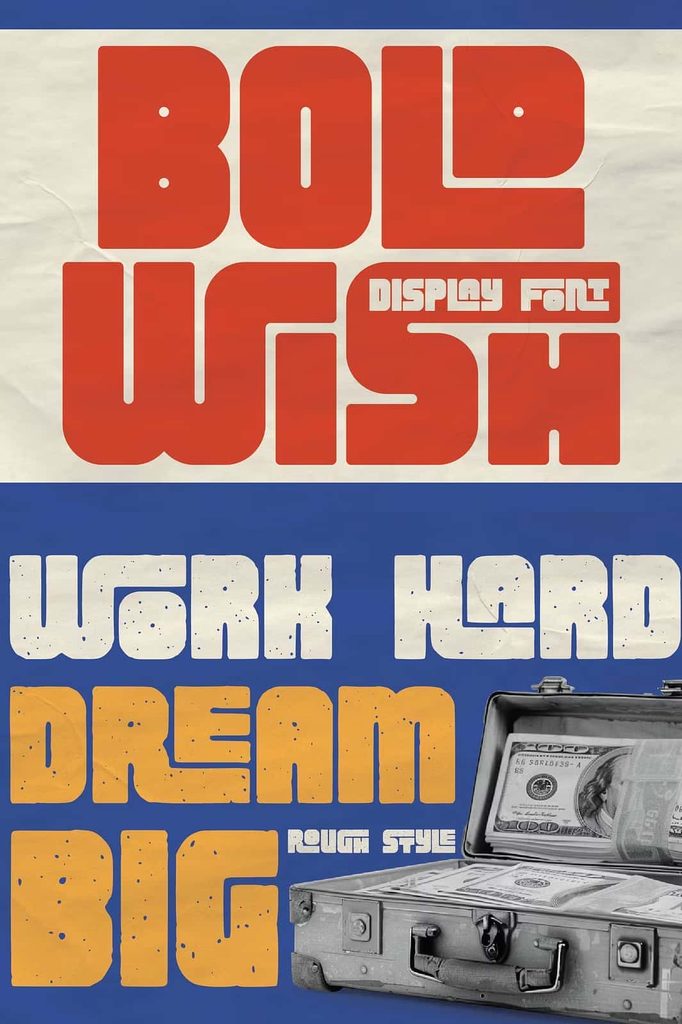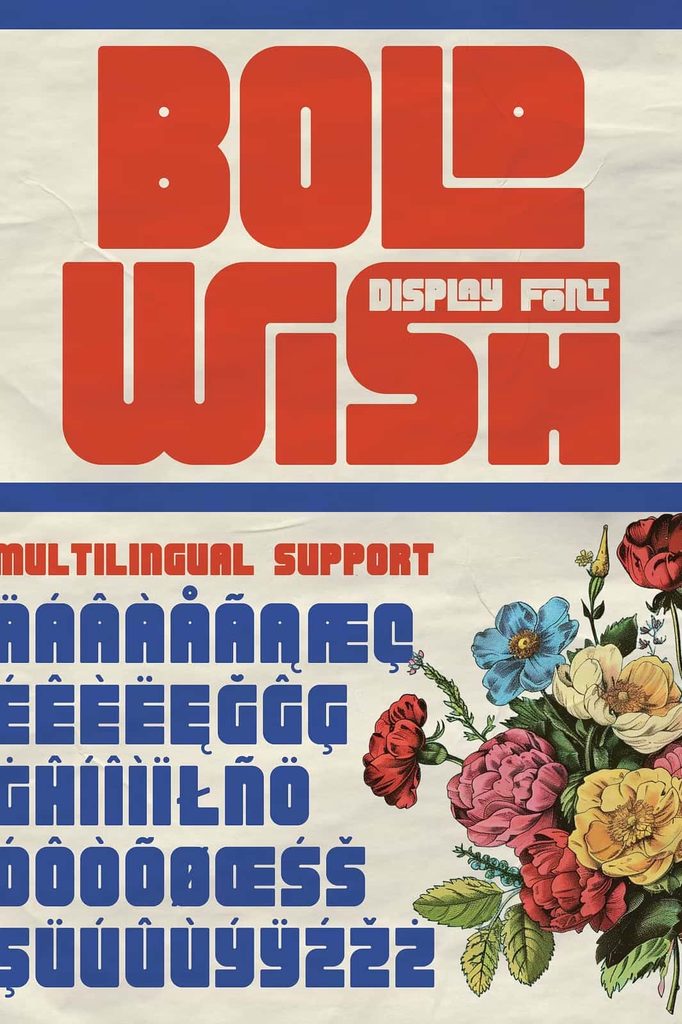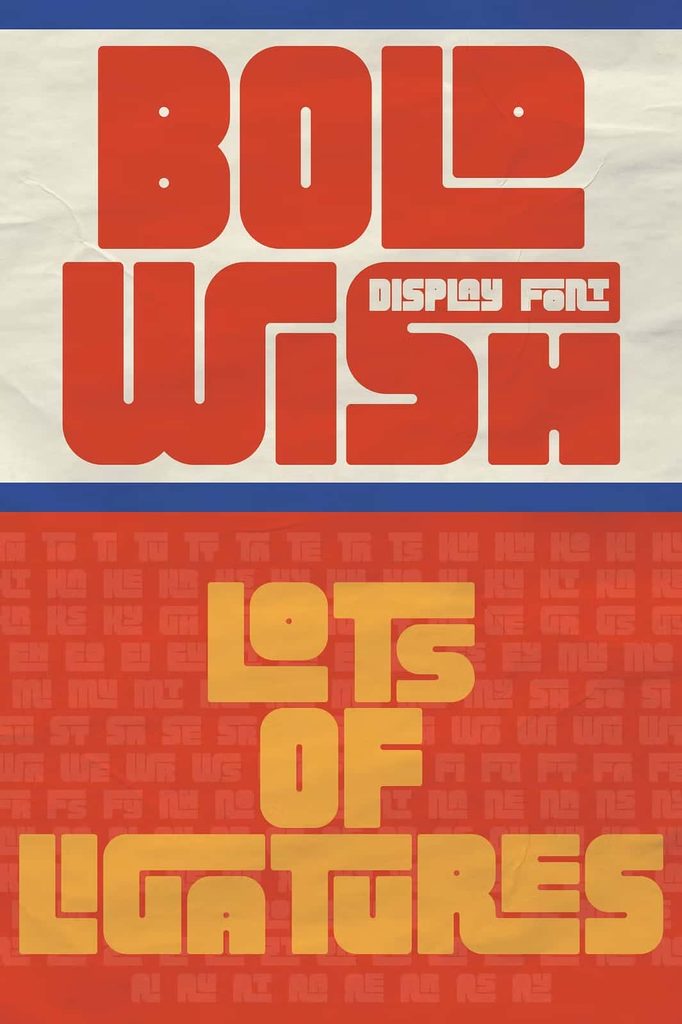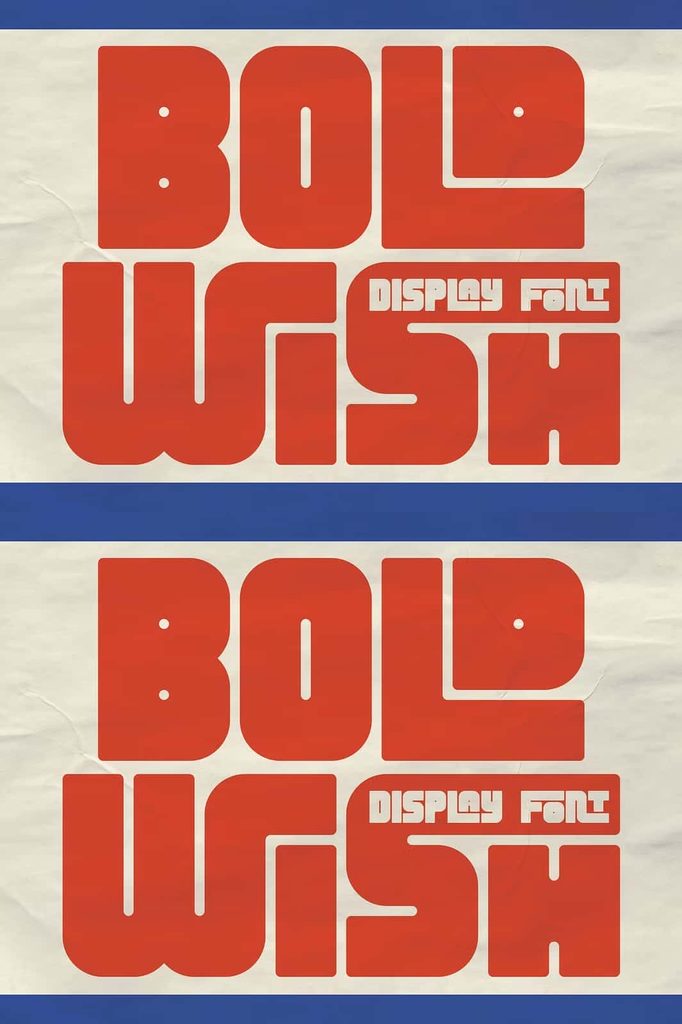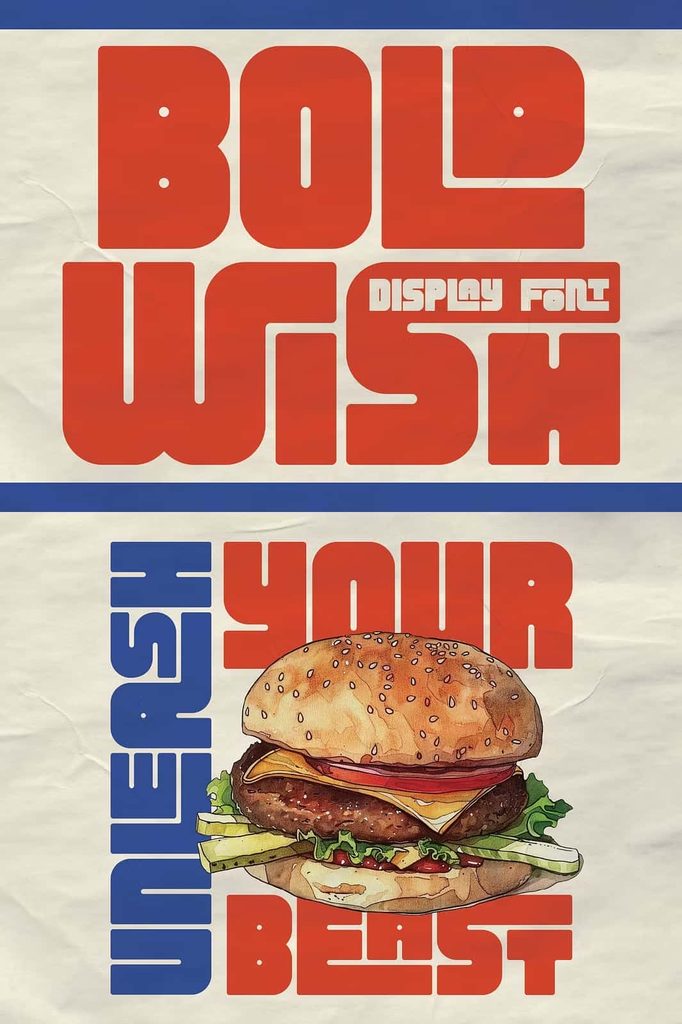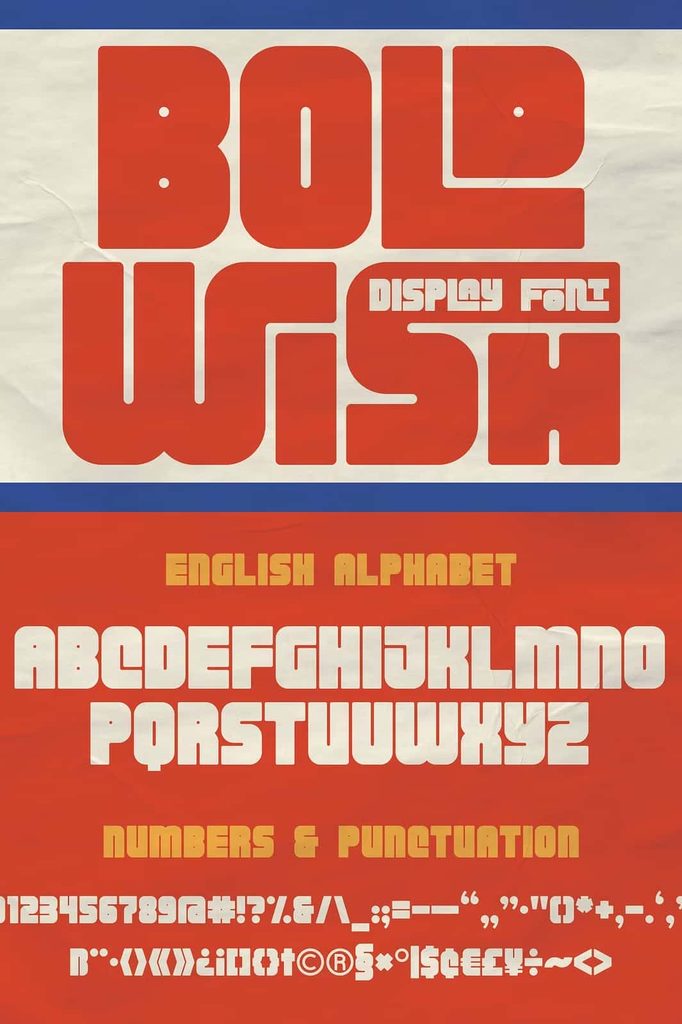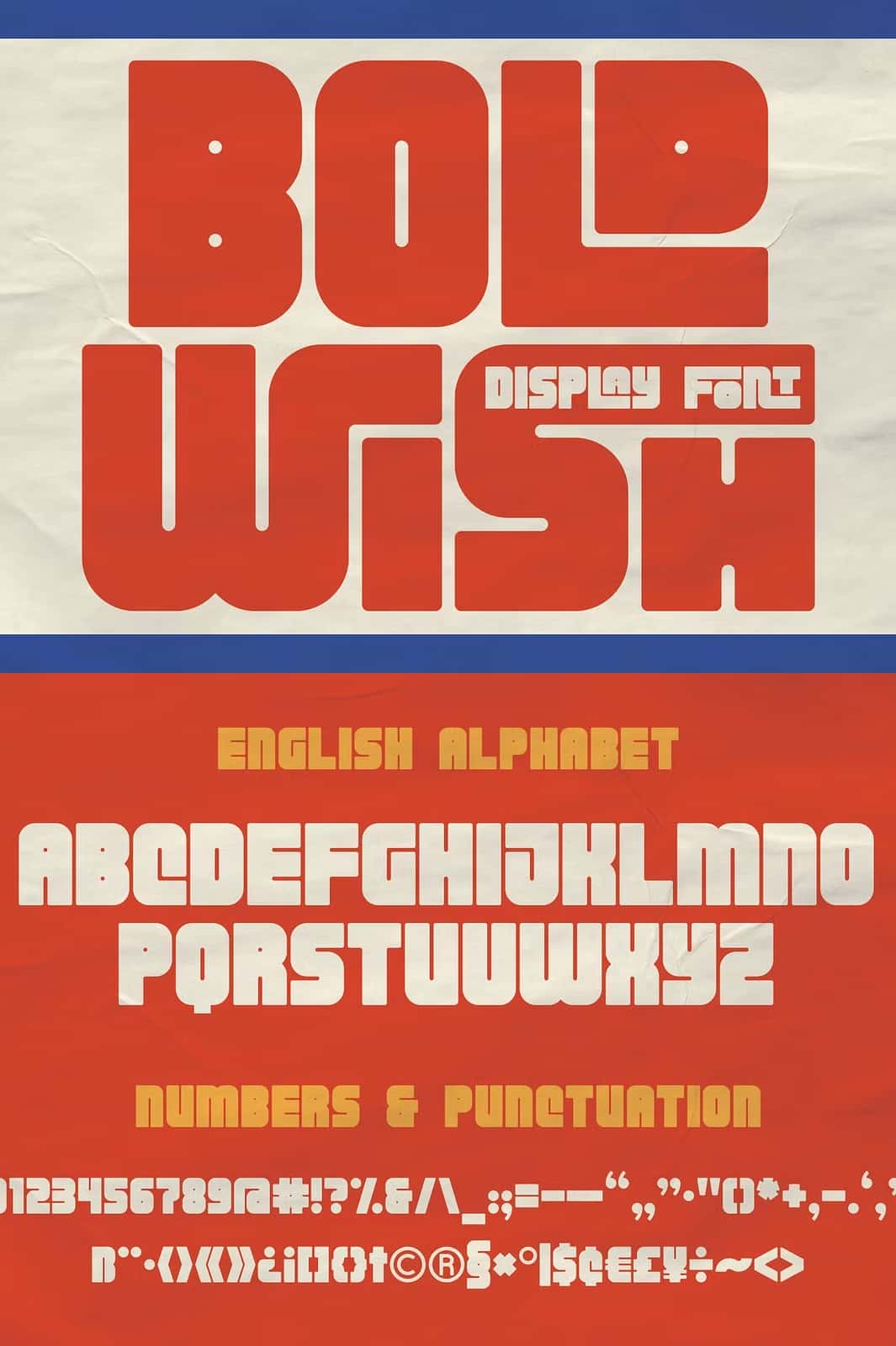
Bold Wish – Display Font
Bold Wish is a distinctive display font that brings together vintage character, retro energy, rough textures, rounded shapes, and bold sans serif construction. Designed to make a strong visual statement, this typeface gives your creative projects a confident personality without sacrificing readability. Its expressive letterforms work especially well when you need typography that immediately catches attention and creates a memorable impression.
Whether you are developing a new logo, building a complete brand identity, designing packaging, or creating eye-catching promotional graphics, Bold Wish gives you a versatile typographic foundation. Its bold structure helps headlines stand out, while its rounded details and vintage-inspired appearance add warmth and personality to your designs.
A Unique Vintage Display Typeface
Bold Wish combines classic retro inspiration with a modern display font approach. Its unique letterforms create a nostalgic atmosphere while maintaining enough clarity for contemporary design projects. The rough character adds visual texture, making the font feel handcrafted and energetic rather than overly polished or generic.
The rounded shapes soften the powerful weight of the typeface and create a friendly visual rhythm. At the same time, the bold construction ensures that your text remains prominent across different layouts. This combination makes Bold Wish an excellent choice for designers who want to balance strength, creativity, and vintage personality.
Bold and Eye-Catching Letterforms
Bold typography can transform a simple design into a powerful visual statement. Bold Wish uses its substantial letterforms to command attention and establish a clear hierarchy. Use it for large titles, brand names, campaign headlines, product labels, posters, and other prominent text where you want your message to take center stage.
The typeface also works effectively when you use short words or phrases as visual elements. Its strong proportions allow individual words to become part of the overall composition, helping you create memorable designs with minimal additional decoration.
Retro and Rough Character
The vintage and retro qualities of Bold Wish give your work an authentic old-school atmosphere. Its rough visual character introduces subtle imperfections that can make typography feel more tactile and expressive. This style suits projects inspired by classic signage, nostalgic advertising, vintage merchandise, retro branding, and contemporary designs that borrow from earlier visual eras.
Instead of relying on complicated graphic effects, you can let the font provide much of the personality. The distinctive shapes naturally add character to your composition, helping you create engaging typography with a strong visual identity.
Perfect for Logos and Branding
Bold Wish performs particularly well in logo and branding projects. A strong display typeface can help a brand establish recognition, and Bold Wish offers the visual impact needed for memorable wordmarks and identity systems. Its bold construction gives business names a confident presence, while its rounded and vintage details create a more approachable personality.
Use Bold Wish to develop logos for creative businesses, lifestyle brands, clothing labels, food products, cafés, restaurants, entertainment projects, and other ventures that benefit from distinctive typography. You can also combine it with a simpler secondary typeface to create contrast between headings and supporting information.
Multilingual Support
Bold Wish includes multilingual support, allowing you to use the typeface across a wider range of projects and audiences. This feature makes the font more practical for designers who create branding, marketing materials, digital content, or packaging for international clients and customers.
Multilingual compatibility also helps maintain a consistent visual identity when your brand communicates across different languages. Instead of switching to an unrelated typeface for additional text, you can preserve the recognizable Bold Wish style throughout your design system.
Creative Ligatures for Added Style
Bold Wish also includes ligatures that give you additional opportunities to customize your typography. Ligatures can connect selected characters and create alternative letter combinations, adding subtle stylistic details to words and headlines.
Experiment with the available ligatures to create more distinctive wordmarks, titles, and decorative typography. These alternatives can help you avoid repetitive-looking text and introduce additional personality into your compositions.
Where to Use Bold Wish
Bold Wish offers flexibility across both print and digital design. Use it whenever you need typography with a strong personality and an unmistakable retro feel. Its display-focused construction makes it especially effective at larger sizes, where the details of the letterforms can become a central part of the design.
Choose Bold Wish when ordinary typography feels too predictable. Let its distinctive letterforms establish the mood of your project, strengthen your visual hierarchy, and give your brand or artwork a recognizable personality. From logos and packaging to posters and merchandise, this display font helps you turn simple words into compelling visual elements.